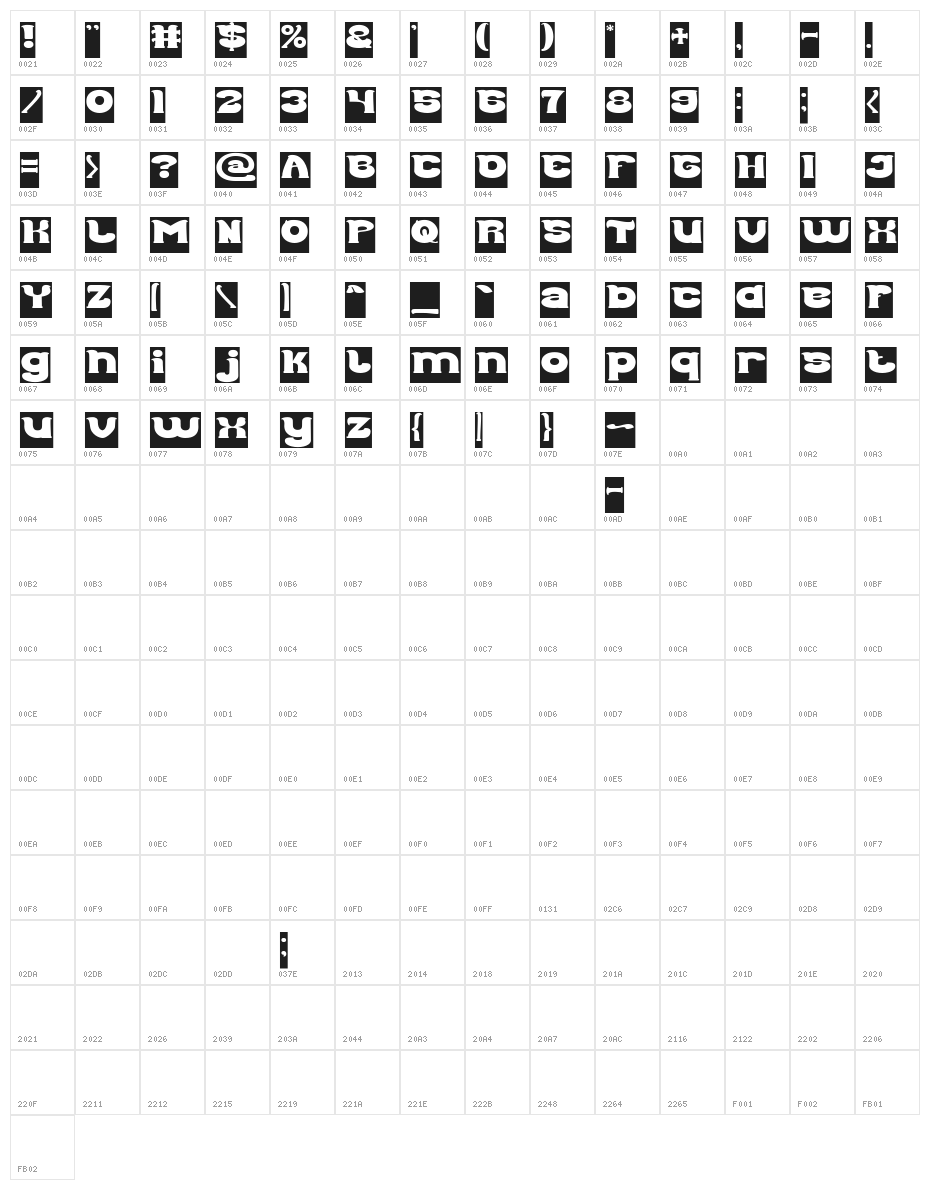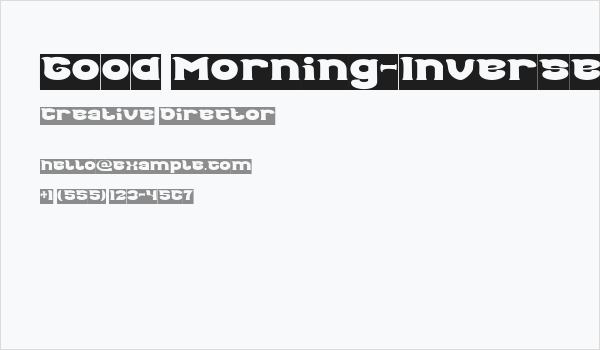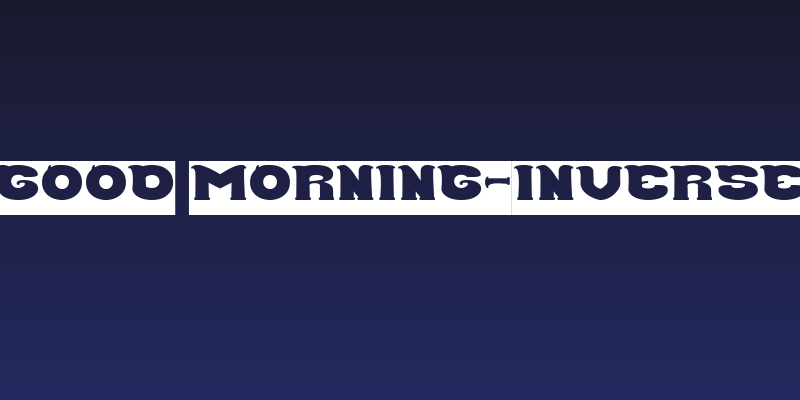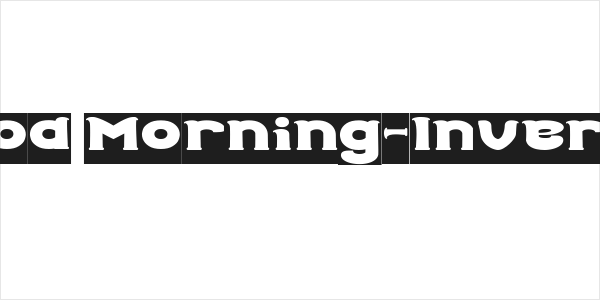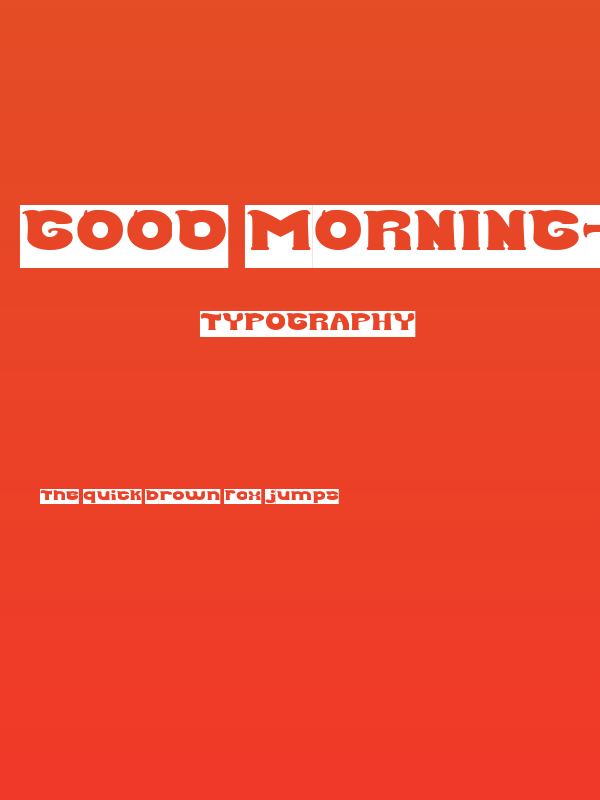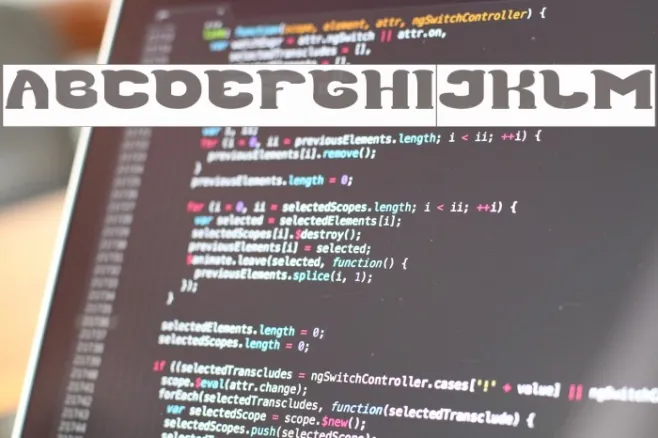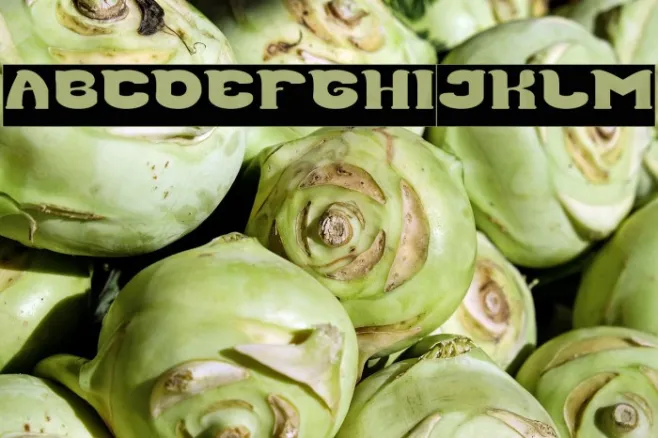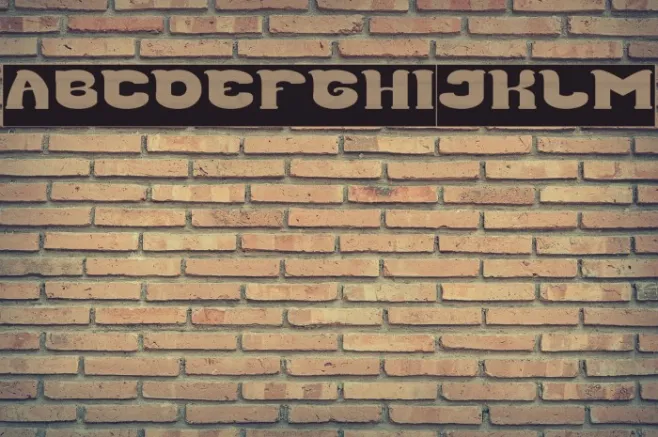
Good Morning-Inverse Font
Good Morning-Inverse Description
This font features a bold and playful design with a strong presence. The characters are rounded and have a whimsical, almost cartoon-like quality, making them stand out with a unique charm. The uppercase and lowercase letters maintain a consistent style, with exaggerated curves and a slightly condensed form. The numbers and special characters follow the same playful aesthetic, ensuring a cohesive look across all elements. This font's distinct style is perfect for capturing attention and adding a fun, lively vibe to any project.
GOOD-MORNING-INVERSE UPPERCASE
GOOD-MORNING-INVERSE LOWERCASE
GOOD-MORNING-INVERSE OTHER CHARS
| Proposed Projects | Ideal for children's books, playful branding, party invitations, and eye-catching posters. |